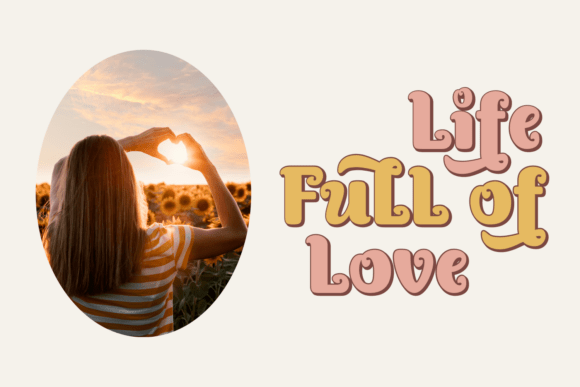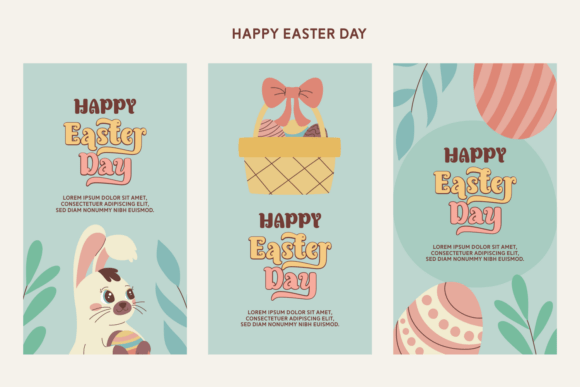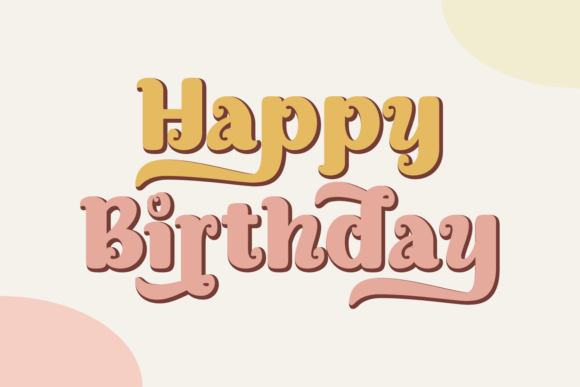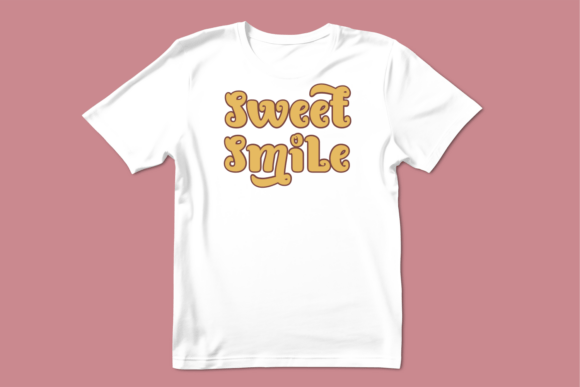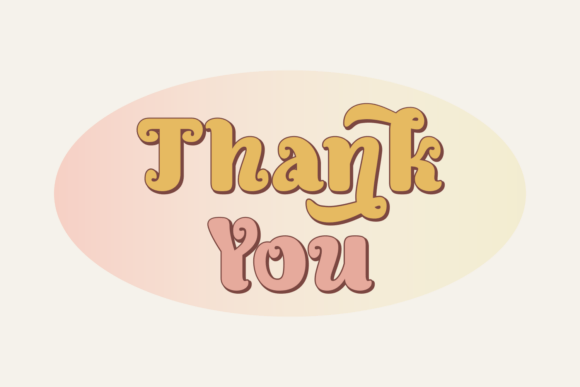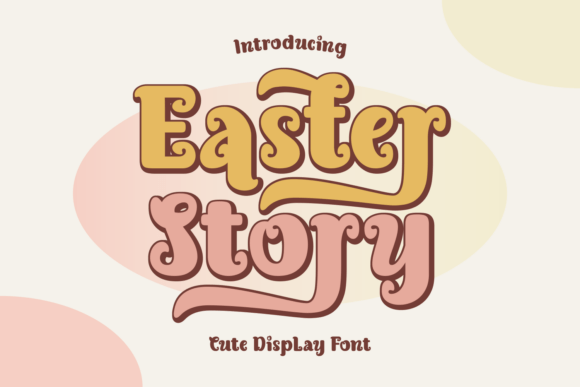
Easter Story Font: A Whimsical and Cheerful Display Font for Holiday Projects
Are you looking for a font that captures the playful and uplifting spirit of Easter? Look no further than the Easter Story Font, a delightful display font that combines retro charm with modern cuteness. This bubbly font is perfect for creating holiday cards, kids’ projects, playful branding, and any other project that needs a sweet and cheerful vibe.
What Makes Easter Story Font So Special?
Easter Story Font is a unique and eye-catching font that stands out from the crowd. Its whimsical letterforms and fun swashes make it perfect for adding a touch of personality to your projects. The font’s retro charm is balanced with a modern, cute aesthetic, making it a perfect blend of nostalgic and contemporary styles.
Perfect for Holiday Cards and Kids’ Projects
Easter Story Font is a great choice for creating holiday cards, invitations, and other Easter-themed projects. Its playful and cheerful vibe makes it perfect for kids’ projects, such as coloring pages, worksheets, and activity sheets. The font’s bubbly letterforms and fun swashes will add a touch of excitement and energy to any project.
Playful Branding and Marketing Materials
Easter Story Font is not just limited to holiday projects. Its playful and cheerful vibe makes it perfect for creating playful branding and marketing materials, such as logos, social media graphics, and advertisements. The font’s unique and eye-catching letterforms will help your brand stand out and leave a lasting impression on your customers.
Key Features of Easter Story Font
- Whimsical and cheerful display font: Easter Story Font is a fun and playful font that is perfect for adding a touch of personality to your projects.
- Retro charm with a modern twist: The font’s retro charm is balanced with a modern, cute aesthetic, making it a perfect blend of nostalgic and contemporary styles.
- Bubbly letterforms and fun swashes: The font’s bubbly letterforms and fun swashes make it perfect for adding a touch of excitement and energy to any project.
- Perfect for holiday cards, kids’ projects, and playful branding: Easter Story Font is a versatile font that can be used for a variety of projects, from holiday cards to playful branding and marketing materials.
Tips for Using Easter Story Font
Here are a few tips for using Easter Story Font in your projects:
- Use it for headings and titles: Easter Story Font is a display font, so it’s perfect for using as headings and titles in your projects.
- Pair it with a simple font: To create visual interest, pair Easter Story Font with a simple font for body text.
- Experiment with colors and textures: Easter Story Font looks great in bright, bold colors and with fun textures and patterns.
| Font Name | Easter Story Font |
| Author | Wankriss |
Easter Story Font is a unique and eye-catching display font that is perfect for adding a touch of personality to your projects. Its whimsical and cheerful vibe makes it perfect for holiday cards, kids’ projects, playful branding, and any other project that needs a sweet and uplifting vibe. With its retro charm and modern cuteness, Easter Story Font is a versatile font that is sure to become a favorite in your design collection.